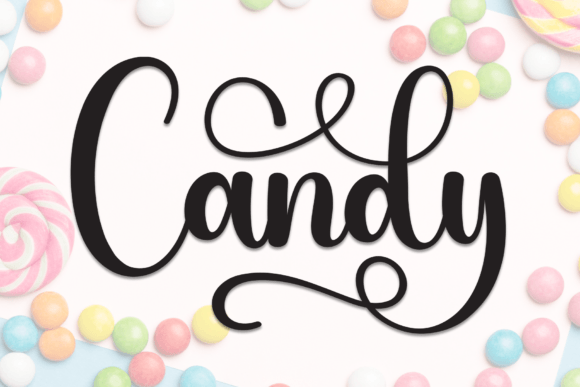
The Sweetest Font You’ll Ever Use: A Deep Dive into Candy Font
I’ll never forget the moment I stumbled upon the perfect font for a whimsical wedding invitation project. I had been scrolling through font after font, trying to find the one that would capture the playful yet romantic essence of the couple’s special day. That’s when I met Candy, a sweet and cursive handwritten font that stole my heart. In this article, I’ll share my love for Candy, its features, and how to make the most of it in your designs.
My Honest Review of Candy Font
Here’s what I love about Candy:
• ✨ Sweet and playful vibe: Candy adds a joyful touch to any project, making it perfect for designs that require a personal and whimsical feel.
• ✅ Cursive and elegant: The font’s cursive style makes it ideal for projects that require a touch of sophistication and romance.
• 💕 Versatile: Candy works beautifully on a variety of design materials, from wedding invitations to social media graphics.
While Candy is an amazing font, it’s not perfect. Here are a few quirks to keep in mind:
• 🤔 Limited use in small sizes: Candy’s cursive style can get a bit messy when used in small sizes. It’s best to use it in larger sizes to appreciate its beauty.
• ⚠️ Not suitable for body text: Due to its cursive nature, Candy is best used for headings and titles rather than body text.
The Story Behind Candy Font
Candy was designed by a talented font creator who wanted to capture the sweetness and playfulness of childhood. Inspired by vintage candy advertisements and handwritten letters, Candy is a font that’s sure to bring a smile to anyone’s face.
What type of projects is Candy best suited for? Candy is perfect for designs that require a playful, romantic, and whimsical feel, such as wedding invitations, social media graphics, and branding materials.
Can I use Candy for body text? No, Candy is best used for headings and titles due to its cursive nature and limited legibility in small sizes.